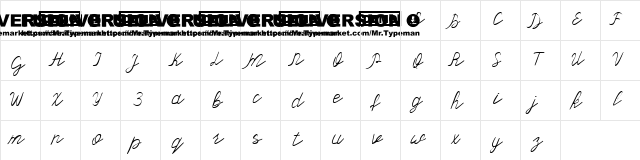
Olster Regular
Design Context for Olster Typeface
Olster takes a measured approach to typography — its balanced proportions and neutral character make it a reliable workhorse for both digital and print work.